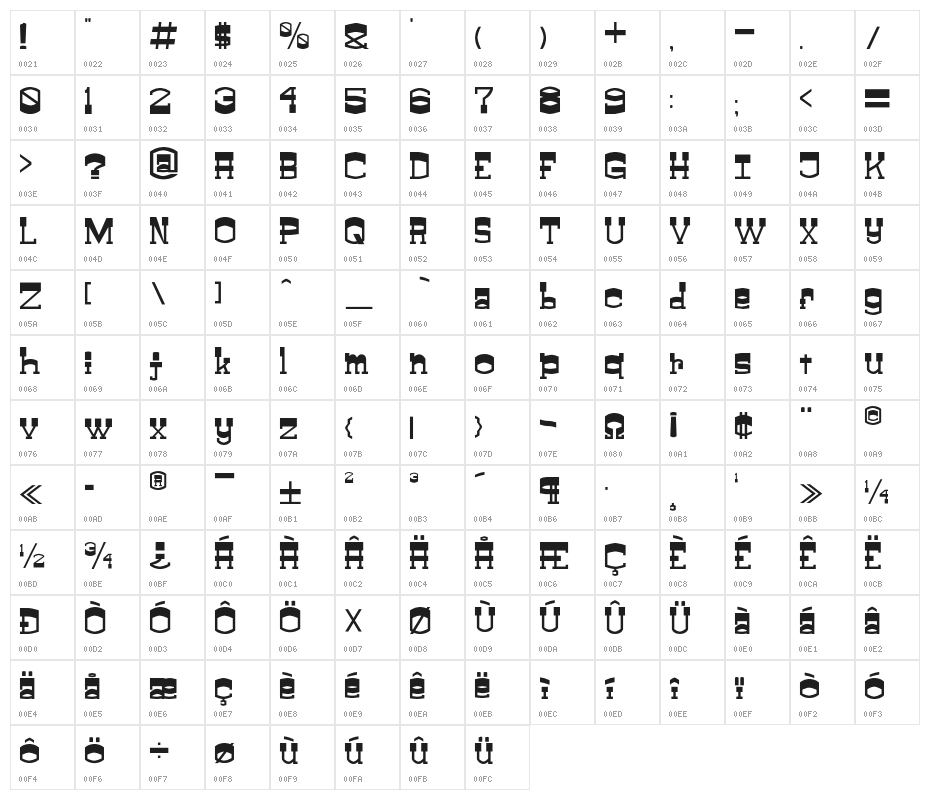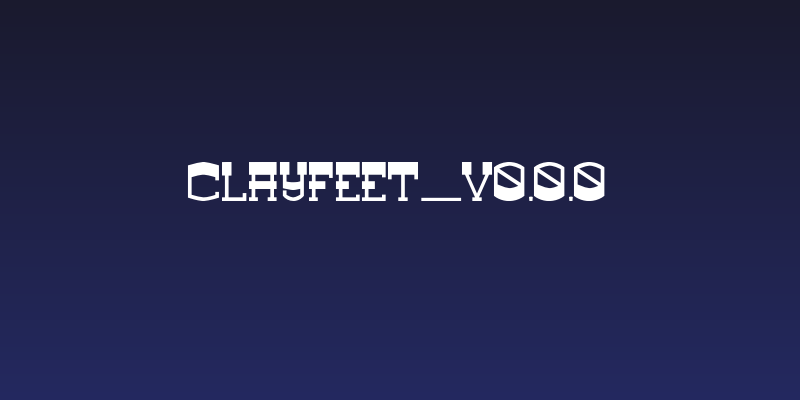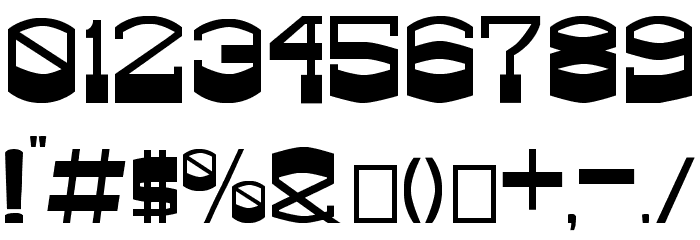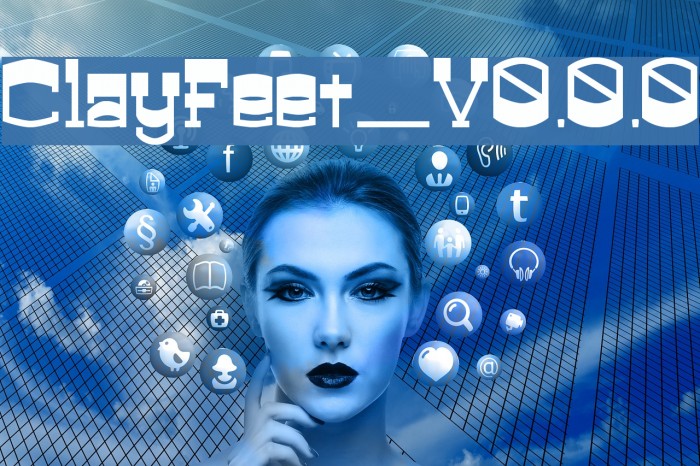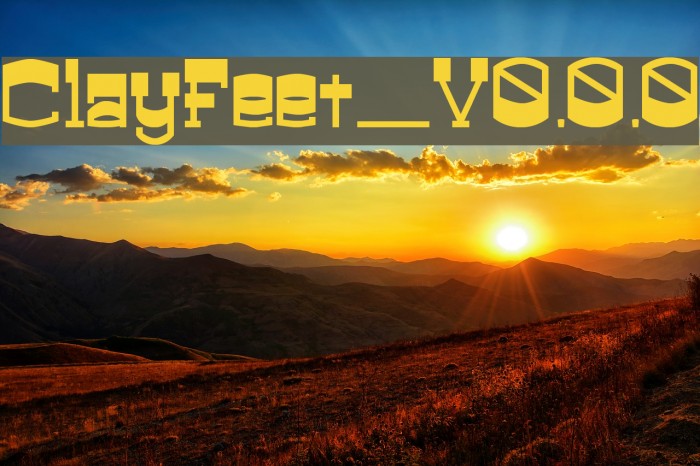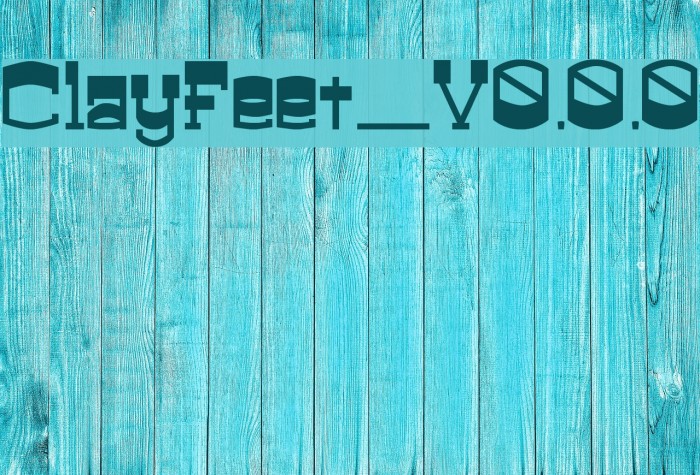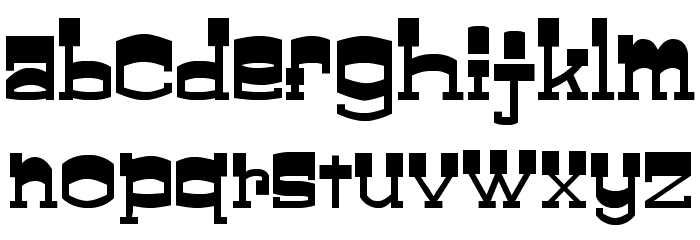
ClayFeet_V0.0.0 Font
ClayFeet_V0.0.0 Description
This font features a bold and striking design with a strong geometric influence. The characters are constructed with thick, blocky shapes that give a sense of solidity and strength. The uppercase letters are particularly bold, with angular cuts and a uniform height that creates a cohesive look. The lowercase letters maintain the boldness but introduce some curves, adding a touch of softness to the overall design. The numerals are equally bold and follow the same geometric style, ensuring consistency across all characters. Special characters are designed with the same attention to detail, making them stand out while remaining harmonious with the rest of the font. This font is ideal for projects that require a strong visual impact and a modern, edgy aesthetic.
| Proposed Projects | Ideal for branding, posters, headlines, and any design requiring a bold statement. |